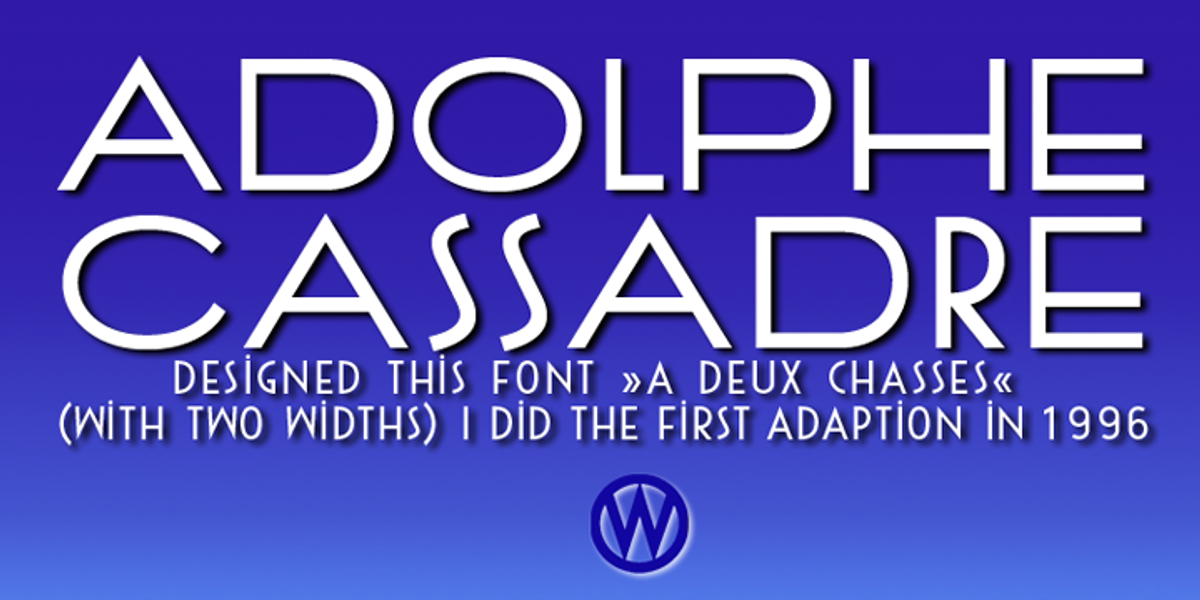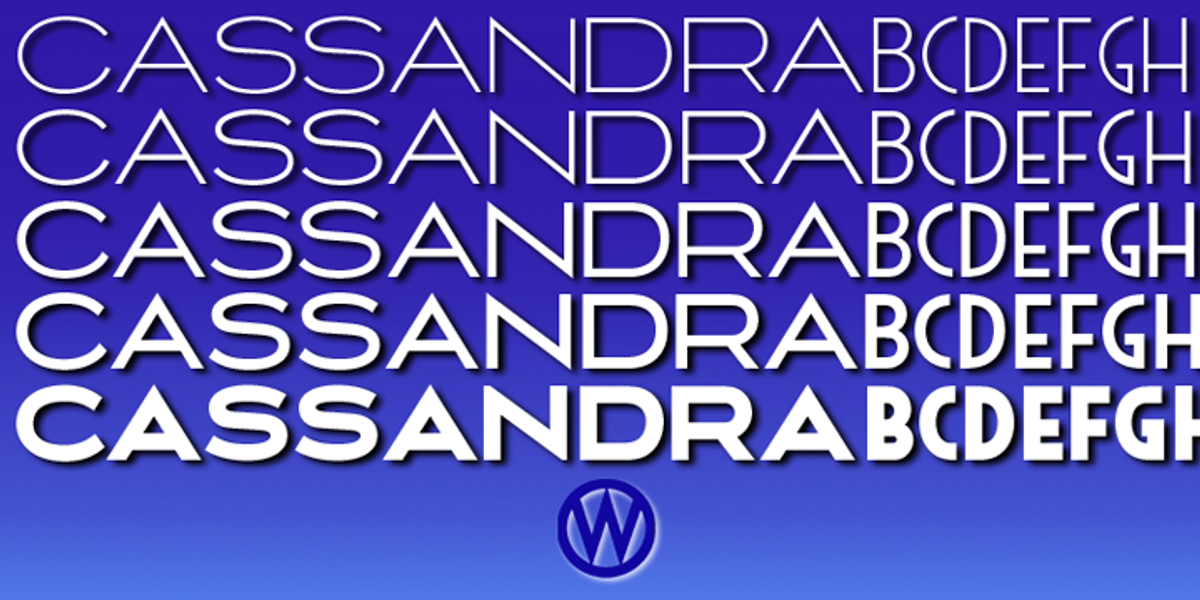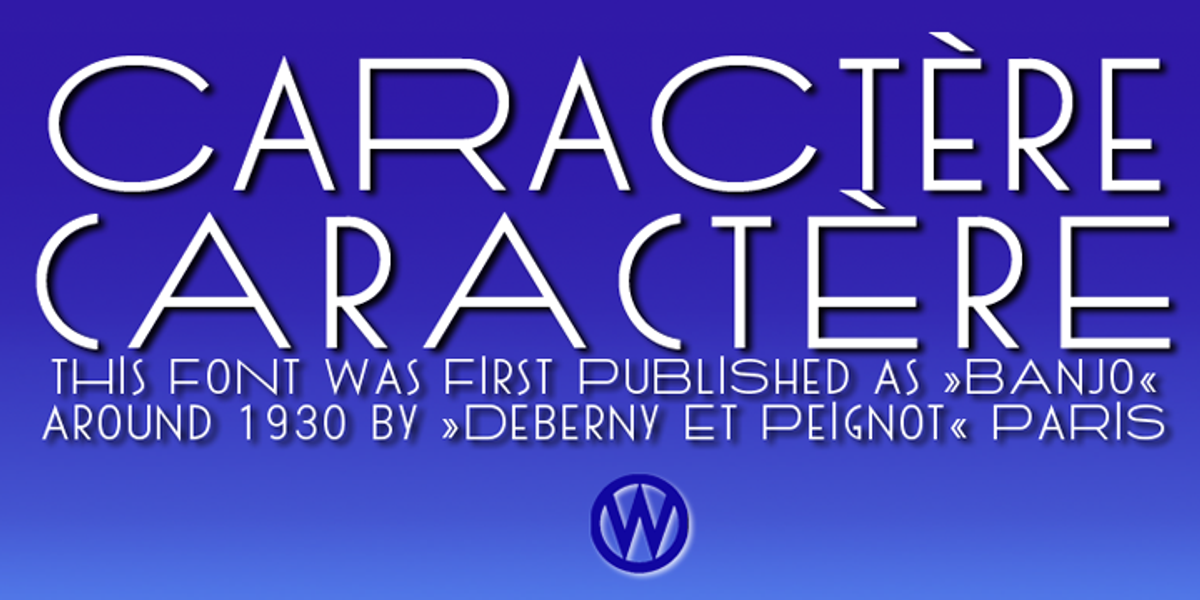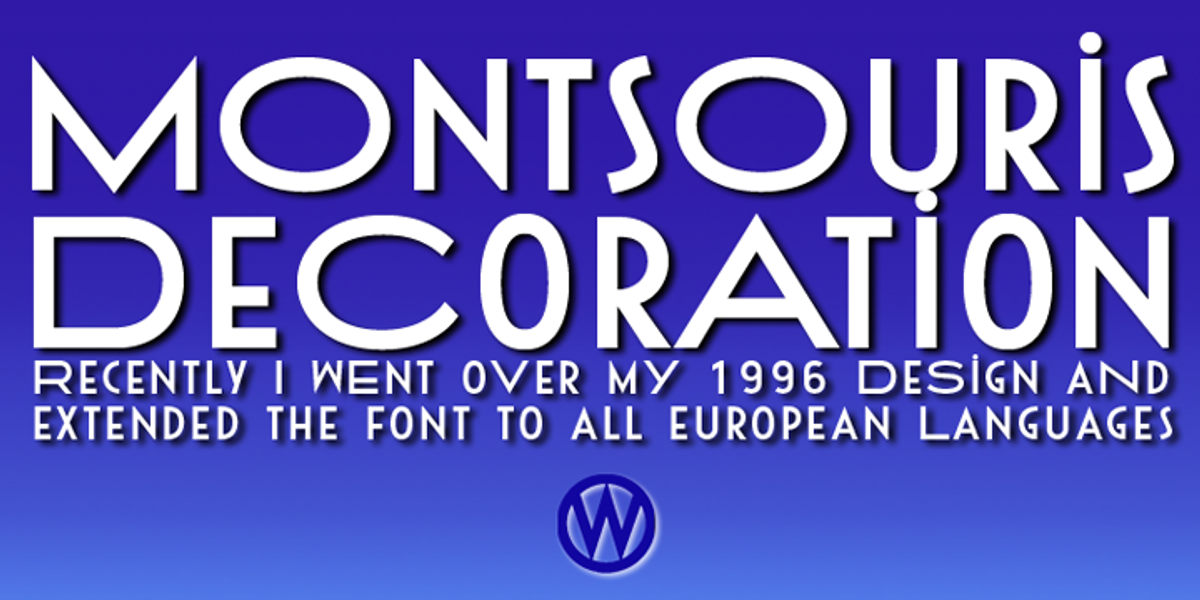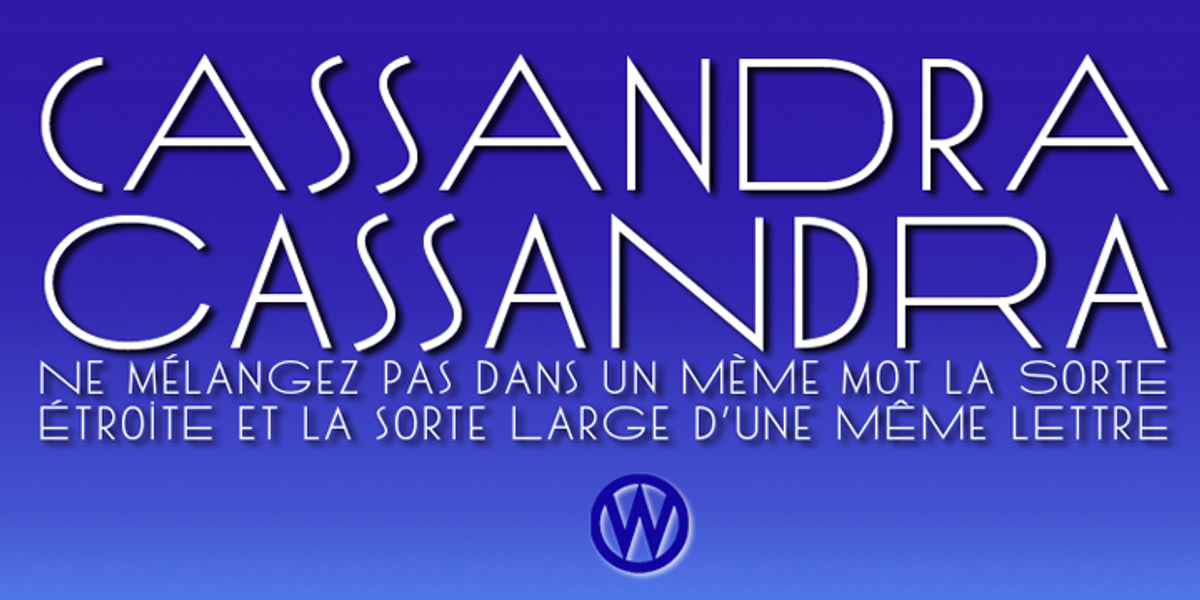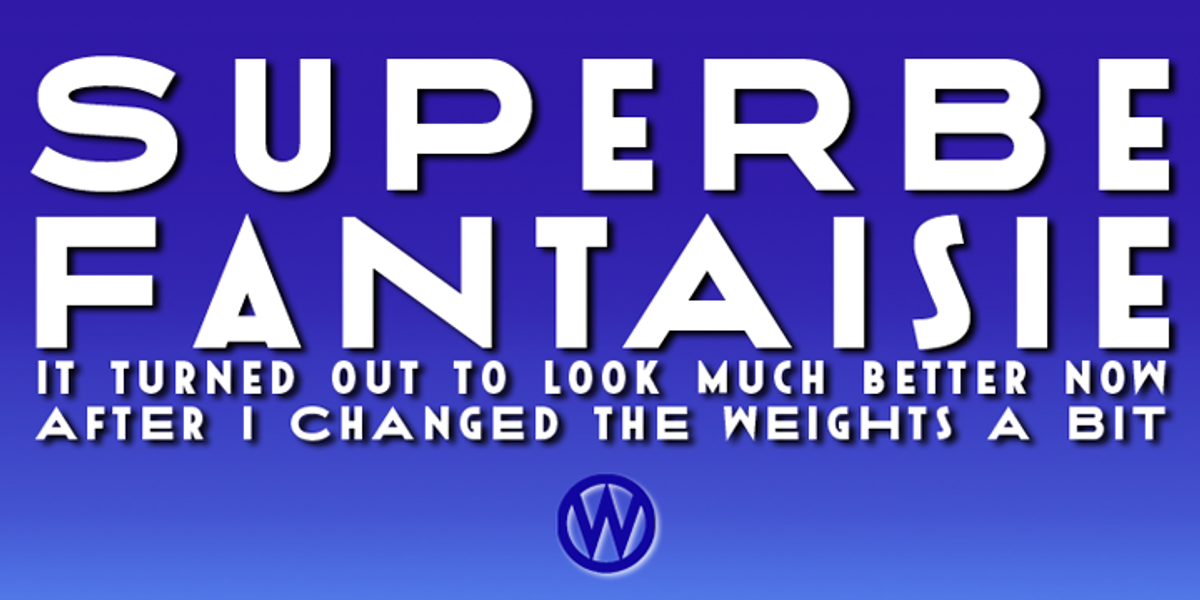
Cassandra Plus
Cassandra Plus is a revised version of Cassandra, a geometric display sans serif font inspired by the Art Deco style of Adolphe Mouron Cassandre. It features two widths – wide capitals accessible with the shift key and narrow lowercase letters – allowing for creative typographic combinations. The font is well-suited for headlines, branding, and posters due to its bold presence and elegant aesthetic.